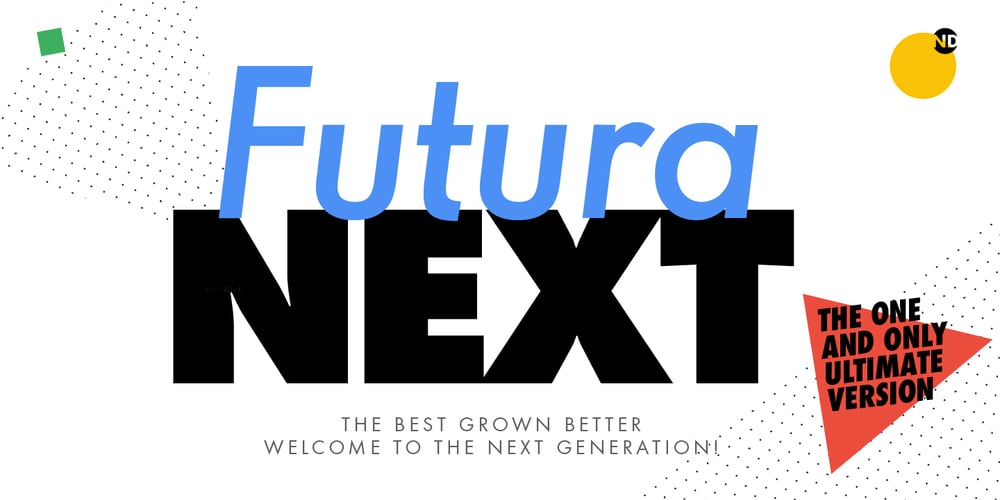
Futura Next Font Family was designed by Paul Renner, Marie-Thérèse Koreman and published by Neufville Digital. Futura Next contains 20 styles and family package options. Our most up-to-date Futura adapted to the new times. Its peculiarity lies in the curved endings of three of its letters (“j”, “l” and “t”), which gives the typeface a more dynamic and modern look, making it easier to visualize on small and low-resolution screens. The original designs of these characters are also included.Futura is a Trademark of BauerTypes SL